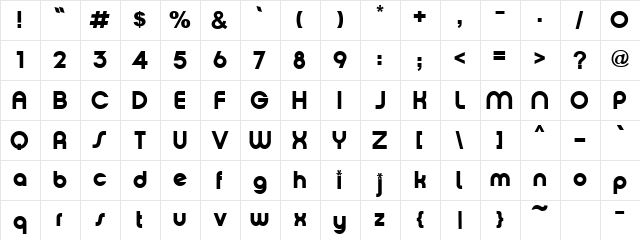
TXT Groovy Smooth Regular
Design Context for TXT Groovy Smooth Typeface
TXT Groovy Smooth offers clean, dependable letterforms without strong stylistic allegiance, making it a practical choice for designers who need flexibility.
Pro Tip: Use TXT Groovy Smooth in both headline and body roles to test its range before committing to a single application.